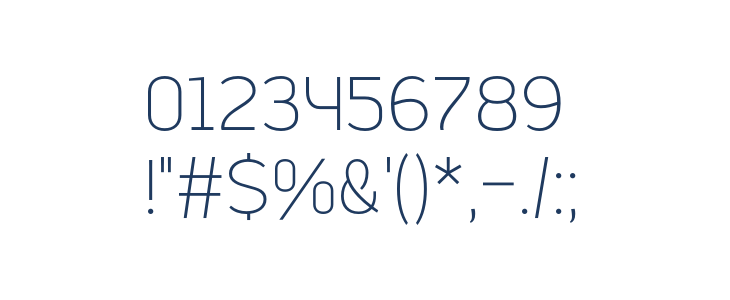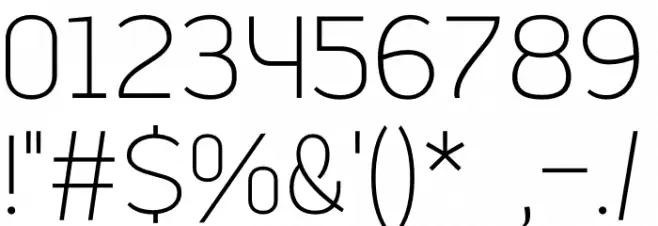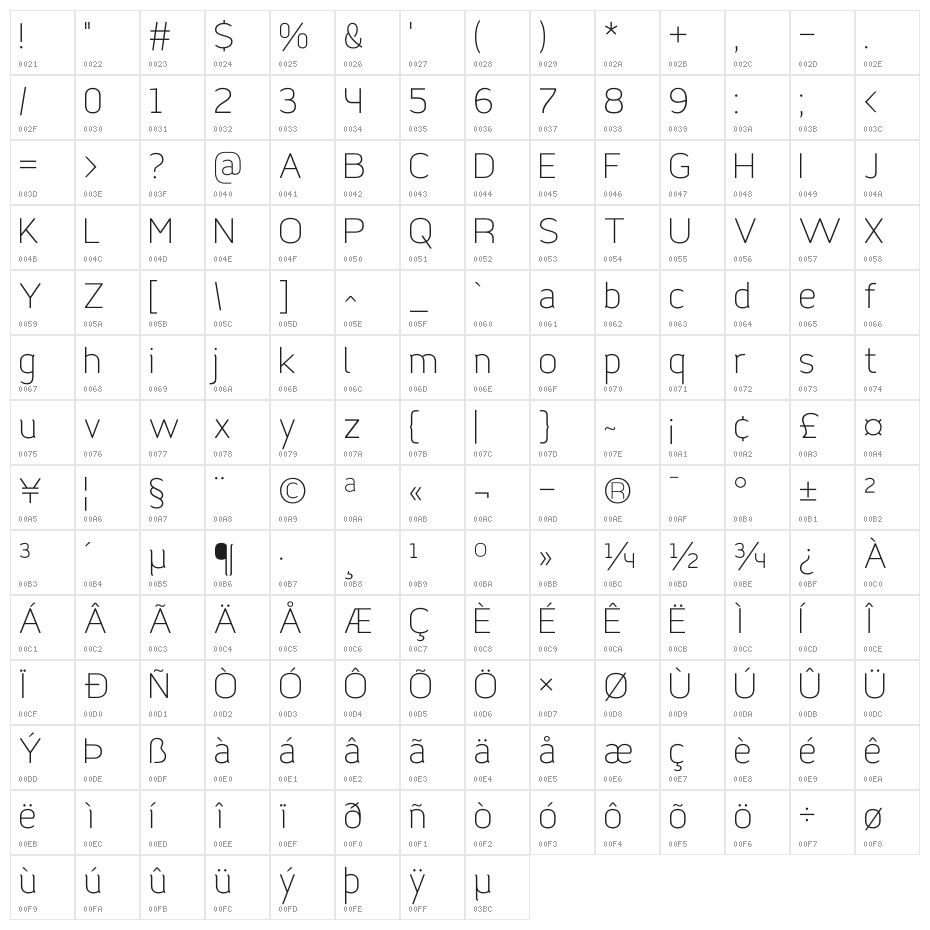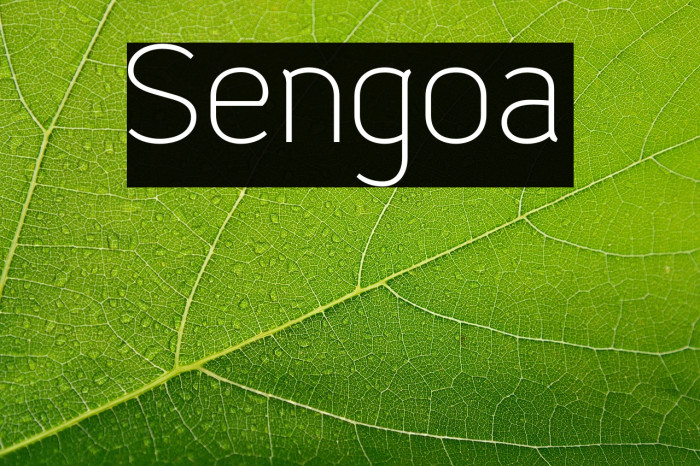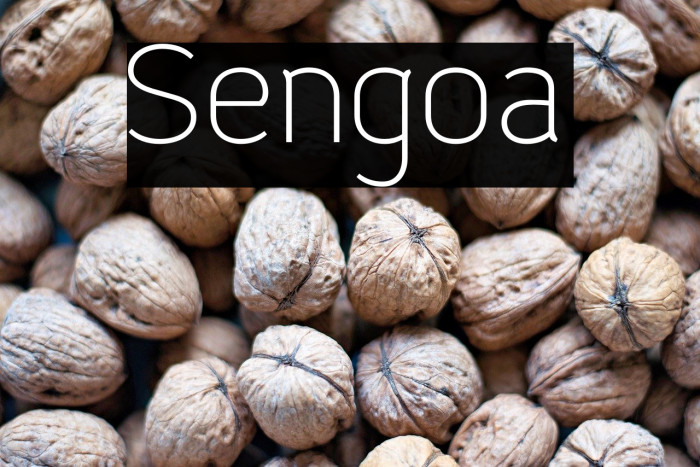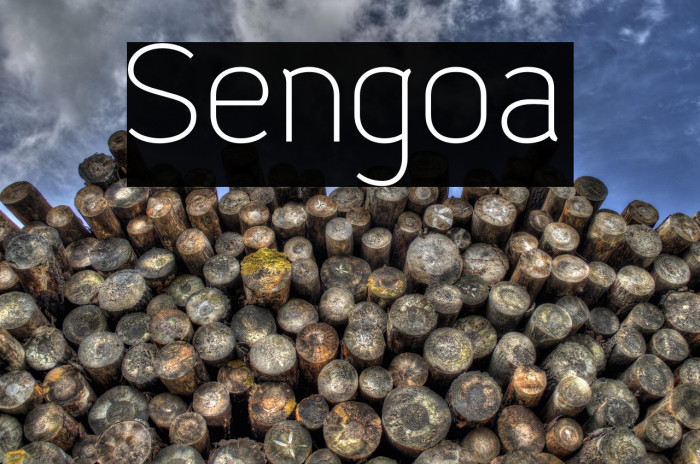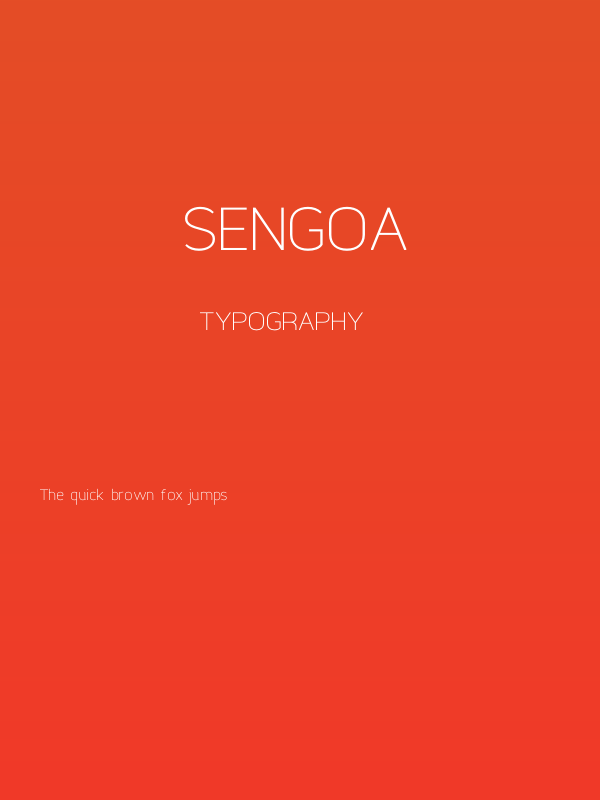
Sengoa Font
This font features a clean and modern sans-serif design with a geometric structure. The characters are evenly spaced, providing a balanced and harmonious appearance. The uppercase letters are tall and slightly condensed, while the lowercase letters maintain a consistent height, contributing to a uniform look. The numerals are clear and distinct, making them easily readable. Special characters are well-integrated, maintaining the overall sleek and minimalist aesthetic. The thin strokes and lack of serifs give it a contemporary feel, suitable for a variety of digital and print applications.
| Proposed Projects | Ideal for digital interfaces, branding, advertising, and editorial design. |